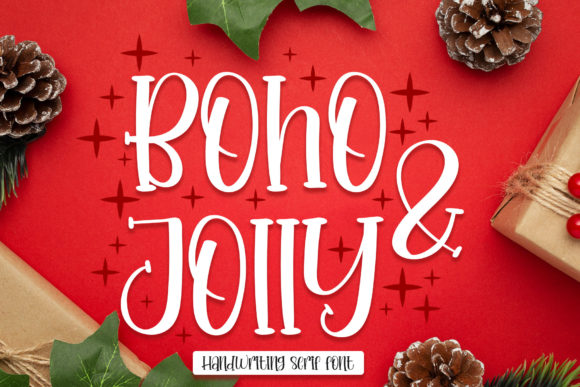
Discover Boho Jolly Font, the captivating serif font that radiates readability, smartness, and style. Its smooth curves dance gracefully across your designs, adding a touch of sophistication and elegance. Unleash your creativity with Boho Jolly, the perfect font for fashion branding and editorial designs. Embrace the beauty of typography and elevate your projects to new heights. Experience the magic of Boho Jolly today!
Boho Jolly Font: A Symphony of Style
Immerse yourself in the world of Boho Jolly, a font that exudes charm and personality. Its intricate details and flowing lines create a visual masterpiece that will leave you spellbound. Whether you're crafting a captivating gift card, designing a fashion catalog, or creating an eye-catching editorial spread, Boho Jolly is your perfect companion. Its versatility knows no bounds, allowing you to explore a myriad of creative possibilities.
Adorn your gift cards with Boho Jolly's enchanting touch, transforming them into thoughtful and personalized tokens of appreciation. Its elegant curves will add a touch of warmth and sentiment to your designs, making each gift card a cherished keepsake. Let Boho Jolly elevate your fashion branding, capturing the essence of your unique style. Its refined aesthetic will add a touch of luxury and sophistication to your designs, making your brand stand out from the crowd.
Unleash the power of Boho Jolly in your editorial designs, creating layouts that captivate and engage your readers. Its readability ensures that your words flow effortlessly across the page, while its stylish appearance adds a touch of visual interest. Boho Jolly is the perfect font for creating captivating headlines, informative articles, and stunning advertisements.
With Boho Jolly, the possibilities are endless. Let your imagination soar as you explore the creative horizons that this font opens up. Its beauty and versatility will transform your designs, leaving a lasting impression on your audience. Experience the magic of Boho Jolly today and embark on a journey of typographic excellence.